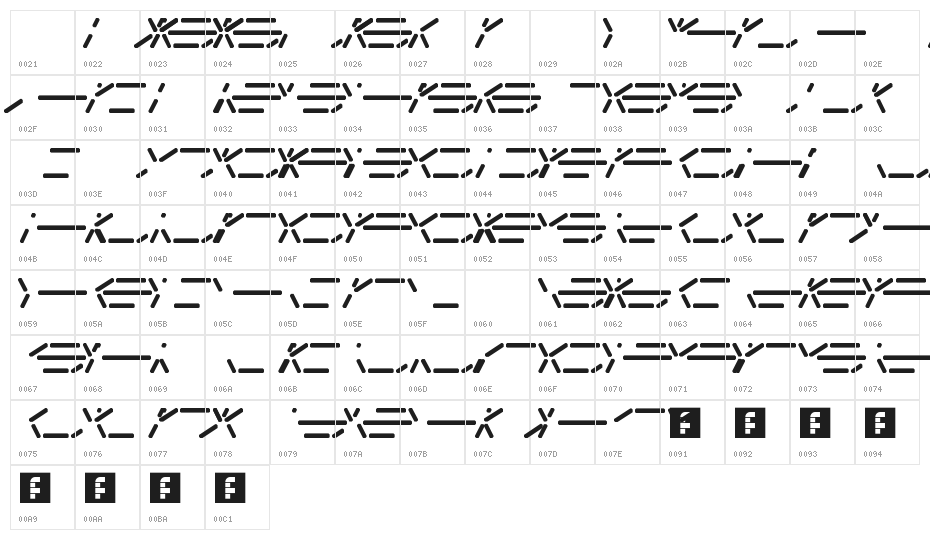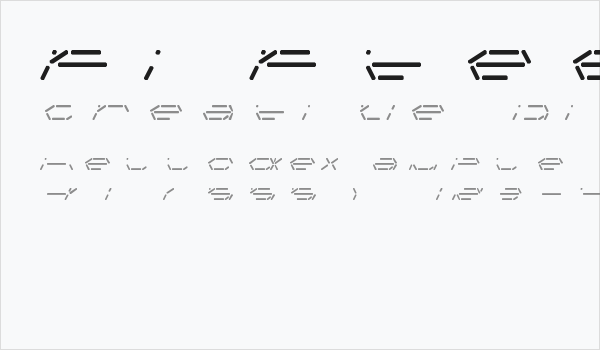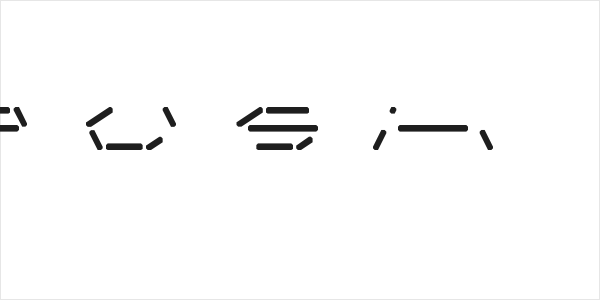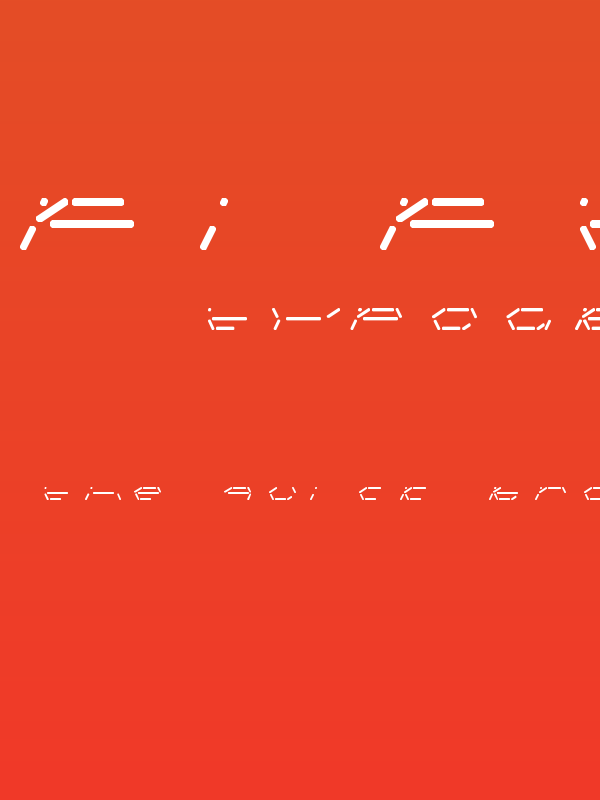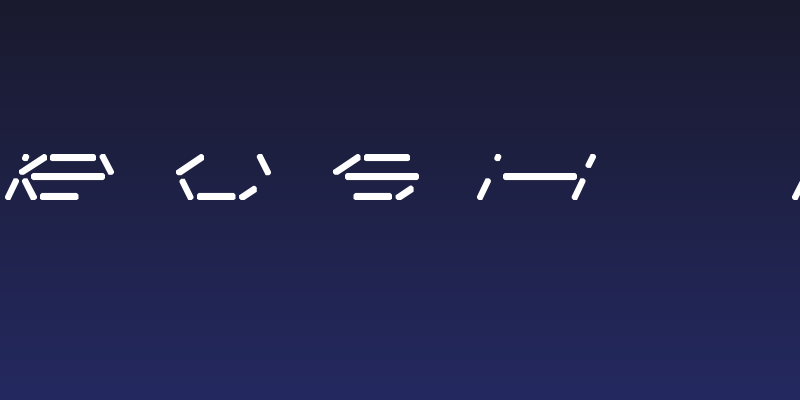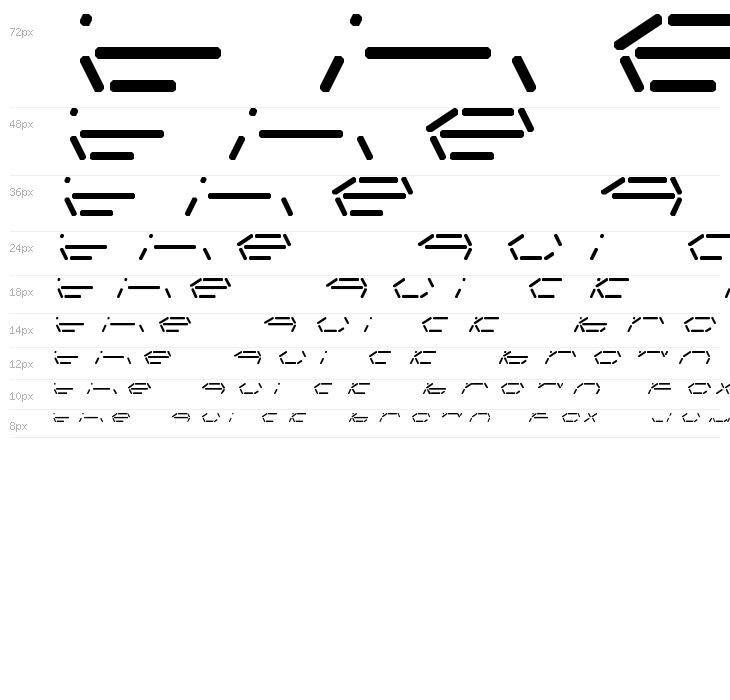
Fifteen Segment Rush Mono LDR Regular Font
Fifteen Segment Rush Mono LDR Regular Description
This font features a unique, segmented design reminiscent of digital displays or LED screens. Each character is constructed using a series of straight lines and angles, creating a geometric and technical appearance. The style is monospaced, ensuring equal width for each character, which enhances its digital and mechanical feel. The font's structure is clean and precise, making it suitable for contexts where a futuristic or technological aesthetic is desired. The characters are easily distinguishable, with a consistent height and width that maintains readability despite the segmented design.
| Use Case | Headlines, Digital displays, Tech interfaces |
| Proposed Projects | Ideal for digital displays, tech-themed designs, coding environments, and futuristic branding. |